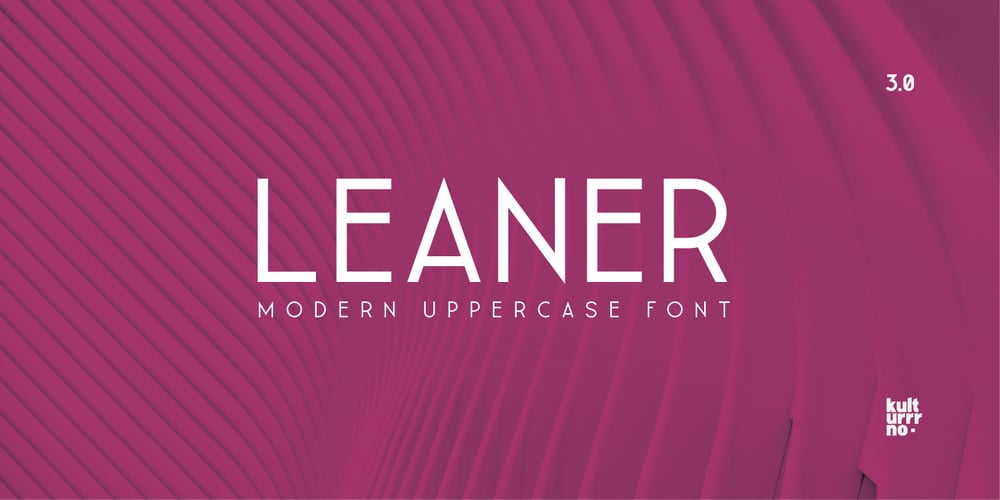
Leaner
Leaner font
Leaner Font Family was designed by Ilyas Yunusov and published by Kulturrrno. Leaner contains 6 styles and family package options. “Leaner” is uppercase sans-serif typeface.It’s clean and universal. Best for logos and heading. Extended latin glyphs Uppercase letters Thin / Regular / Bold weights + Same italics Numbers & punctuation That’s it!